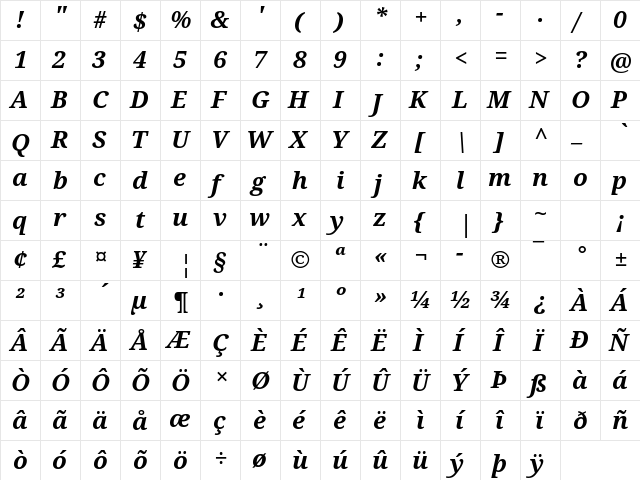
Droid Serif Bold Italic
| Foundry | Ascender Corporation |
Design Context for Droid Serif Typeface
Droid Serif brings classic typographic sensibility to the table — its serifs and measured letterforms reflect centuries of print heritage. The slanted form adds forward momentum and visual energy. Its bold stroke weight gives it real presence on the page.